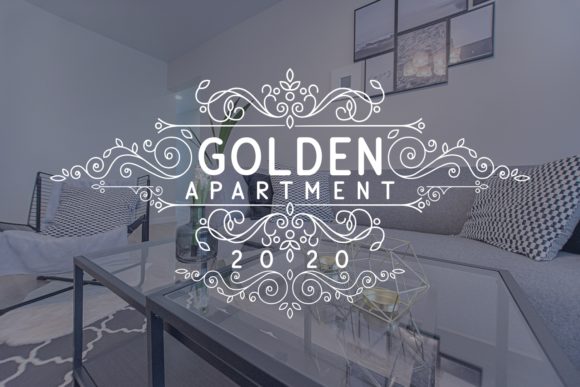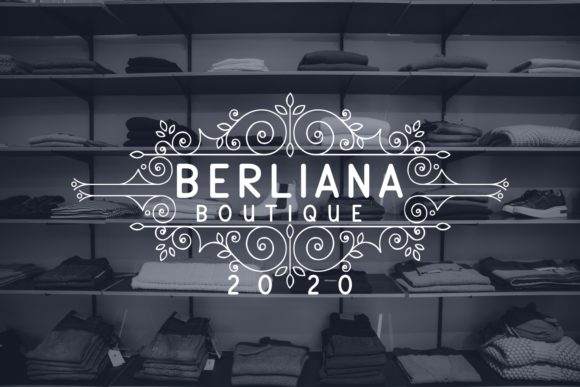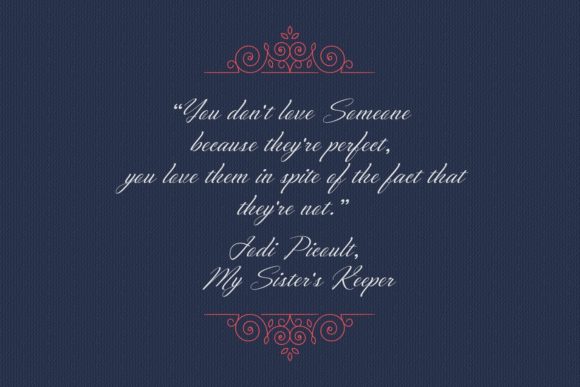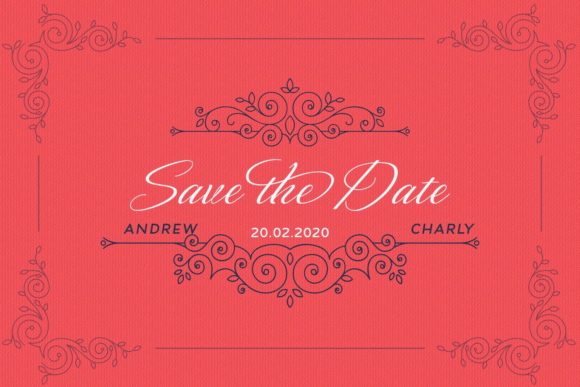
Framerly Font: Elevate Your Designs with Charming Frames
Are you a designer or crafter looking for a unique and versatile font to take your creative projects to the next level? Look no further than Framerly Font, a gorgeous dingbats font that delivers a wonderfully charming set of frames. With its two distinct versions, Framerly offers the perfect combination of flexibility and style, allowing you to create stunning frames that will make your designs stand out.
What is Framerly Font?
Framerly Font is a dingbats font that specializes in providing a wide range of beautifully designed frames. Unlike traditional fonts that focus on alphanumeric characters, dingbats fonts like Framerly offer a unique set of symbols, shapes, and illustrations that can add a touch of personality to your designs. With Framerly, you can add a dash of whimsy, elegance, or playfulness to your projects, depending on your creative vision.
Key Features of Framerly Font
- Two Distinct Versions: Framerly Font comes in two separate versions, giving you the creative freedom to experiment with different styles and combinations. Whether you’re looking for a bold and statement-making frame or a delicate and intricate one, Framerly has got you covered.
- Wide Range of Frames: The font includes a vast collection of frames, each carefully crafted to provide a unique and charming aesthetic. From simple and minimalist to complex and ornate, Framerly’s frames cater to diverse design needs and preferences.
- Scalability: Framerly Font is designed to be scalable, ensuring that your frames look great in any size or resolution. Whether you’re creating a social media graphic, a blog post, or a print project, Framerly’s frames will remain crisp and clear.
Who Can Benefit from Framerly Font?
Framerly Font is an excellent addition to any designer’s or crafter’s toolkit, regardless of their specific niche or industry. Here are some examples of professionals who can benefit from Framerly:
- Graphic Designers: Framerly Font can help graphic designers create visually appealing social media graphics, blog posts, and marketing materials that stand out from the crowd.
- Crafters: Crafters can use Framerly Font to add a personal touch to their DIY projects, such as handmade cards, scrapbooking, and journaling.
- Bloggers: Bloggers can use Framerly Font to create eye-catching headers, footers, and other design elements that enhance the visual appeal of their blog.
- Small Business Owners: Small business owners can use Framerly Font to create professional-looking marketing materials, such as brochures, flyers, and posters.
Tips for Using Framerly Font
To get the most out of Framerly Font, here are some tips to keep in mind:
- Experiment with Different Versions: Try out both versions of Framerly Font to see which one works best for your project.
- Mix and Match Frames: Don’t be afraid to combine different frames to create a unique look.
- Adjust Size and Color: Play with the size and color of your frames to match your brand’s aesthetic or project theme.
- Use in Combination with Other Fonts: Pair Framerly Font with other fonts to create a visually appealing contrast.
Framerly Font is a versatile and charming dingbats font that offers a wide range of beautifully designed frames. With its two distinct versions, ease of use, and scalability, Framerly is an excellent choice for designers and crafters looking to elevate their creative projects. Whether you’re a seasoned professional or just starting out, Framerly Font is sure to inspire your creativity and help you create stunning frames that leave a lasting impression.